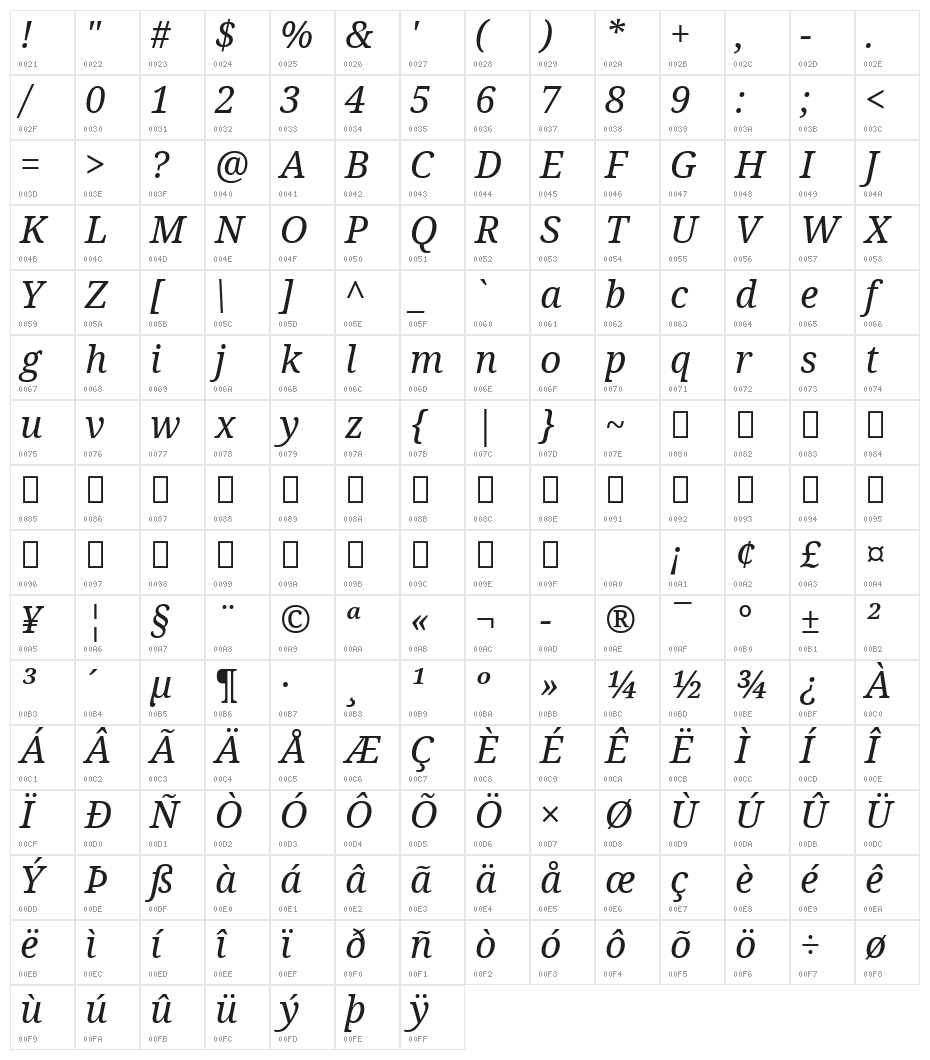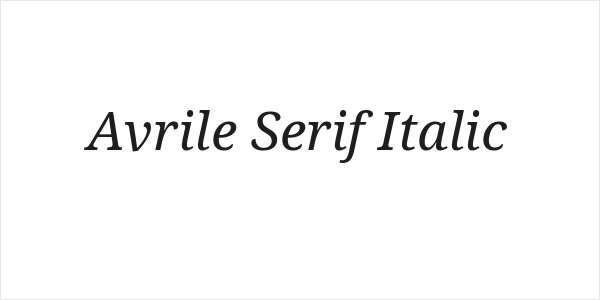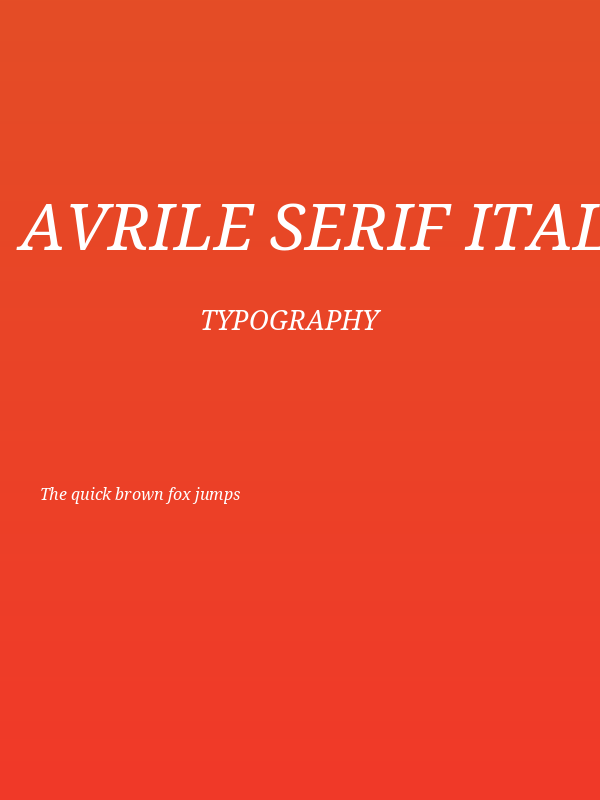
Avrile Serif Italic Font
Avrile Serif Italic Description
This elegant serif font features a classic italic style, characterized by its refined and slightly slanted letterforms. The font exhibits a sophisticated and timeless appeal, with smooth curves and sharp serifs that enhance readability. The uppercase letters are well-proportioned, while the lowercase letters maintain a graceful flow. The numerals are clear and distinct, making them suitable for various applications. Special characters are thoughtfully designed, complementing the overall aesthetic. This font is ideal for projects that require a touch of elegance and tradition.